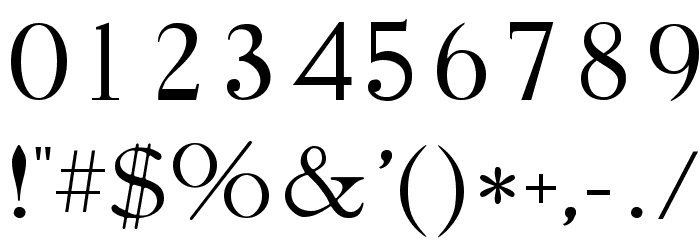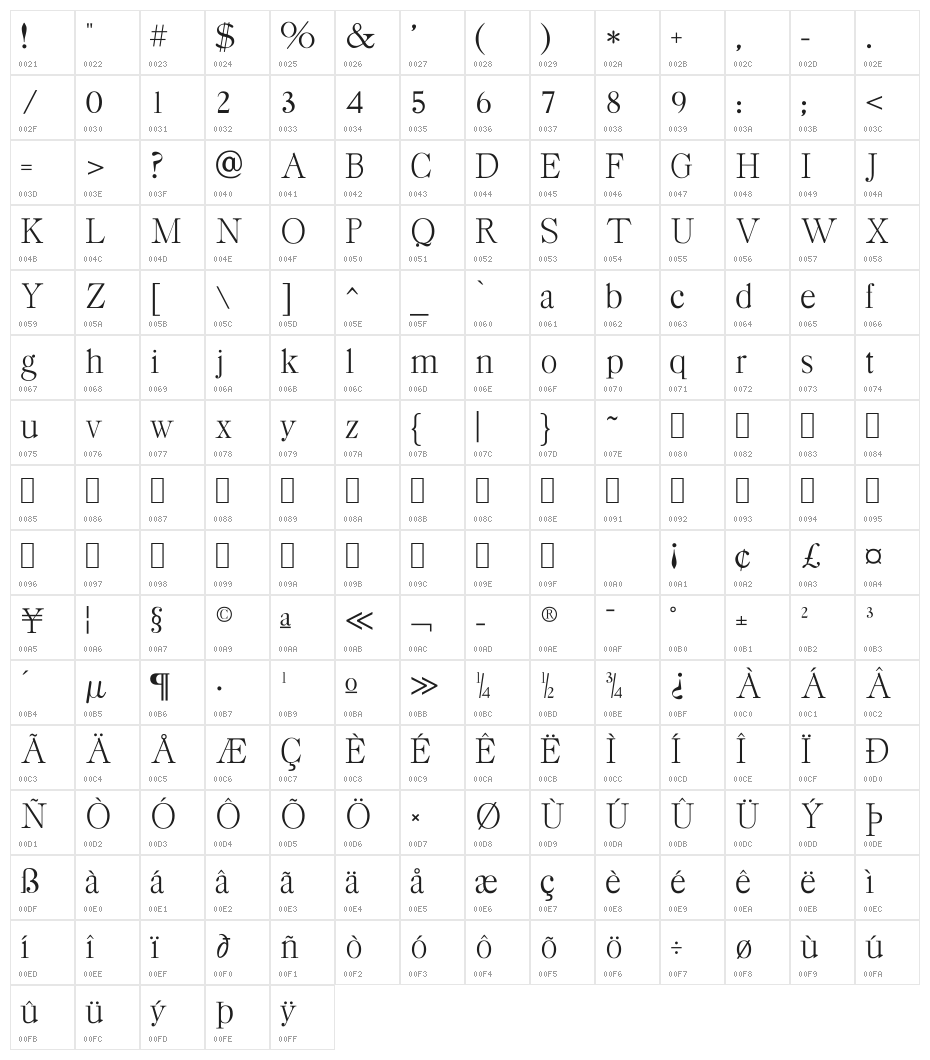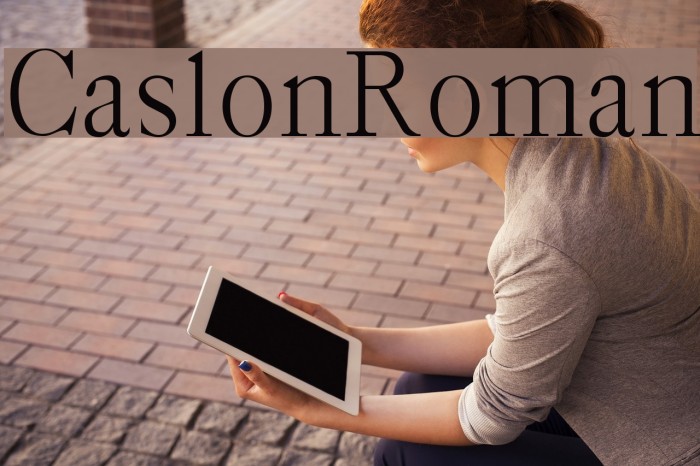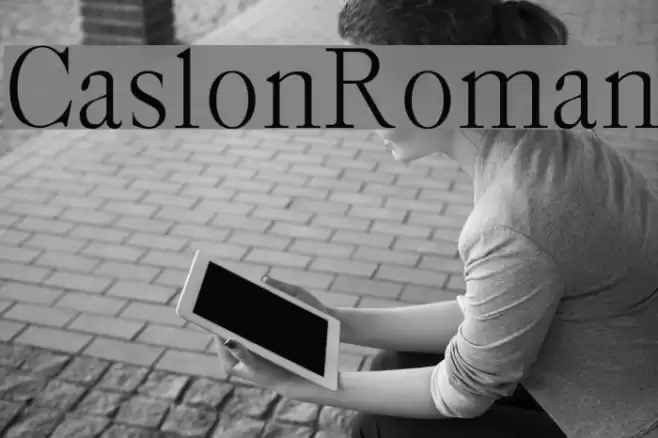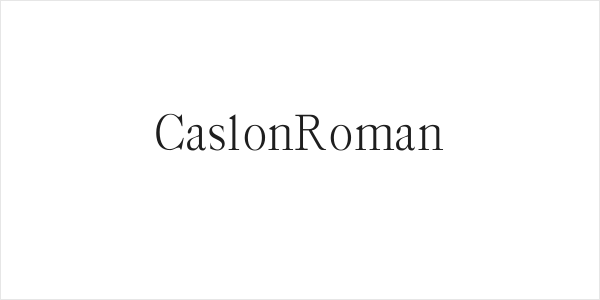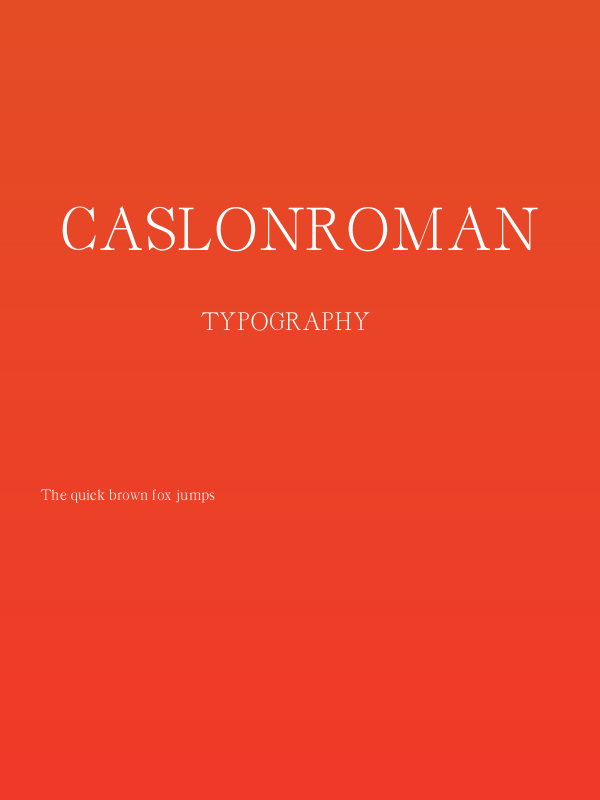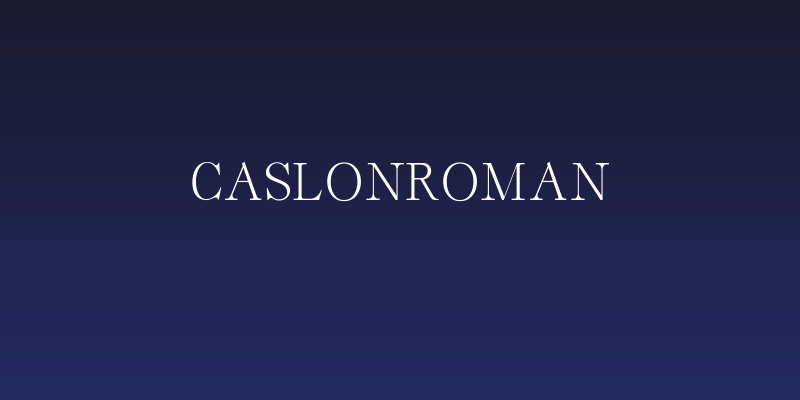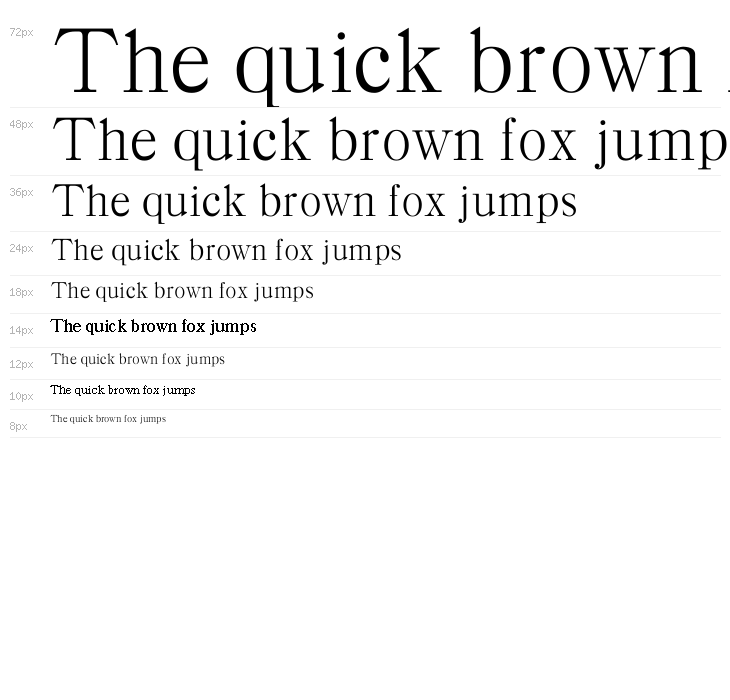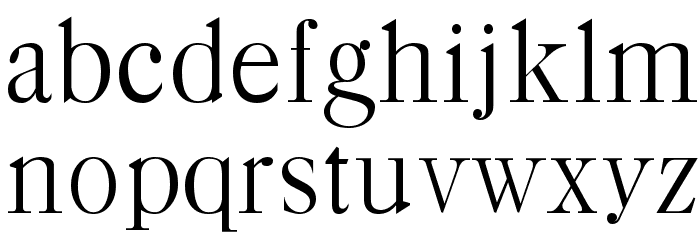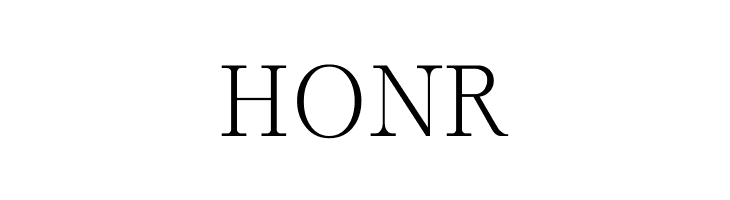
CaslonRoman Font
CaslonRoman Description
This typeface exhibits a classic and timeless serif design, characterized by its elegant and refined letterforms. The strokes are well-balanced, with moderate contrast between thick and thin lines, giving it a sophisticated appearance. The serifs are pronounced yet not overly exaggerated, providing a sense of stability and readability. The overall design is rooted in traditional typography, making it suitable for conveying a sense of history and authority. The numerals and special characters are crafted with the same attention to detail, ensuring consistency throughout the typeface.
| Use Case | Body text, Headlines, Editorial design |
| Proposed Projects | Ideal for editorial design, book publishing, formal invitations, and branding projects that require a touch of tradition and elegance. |